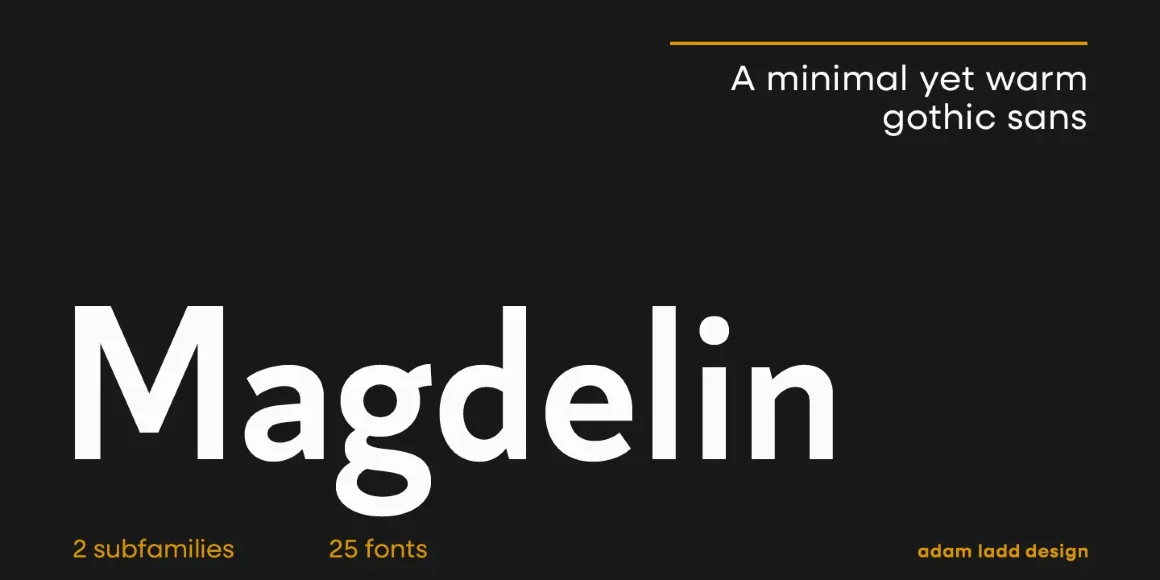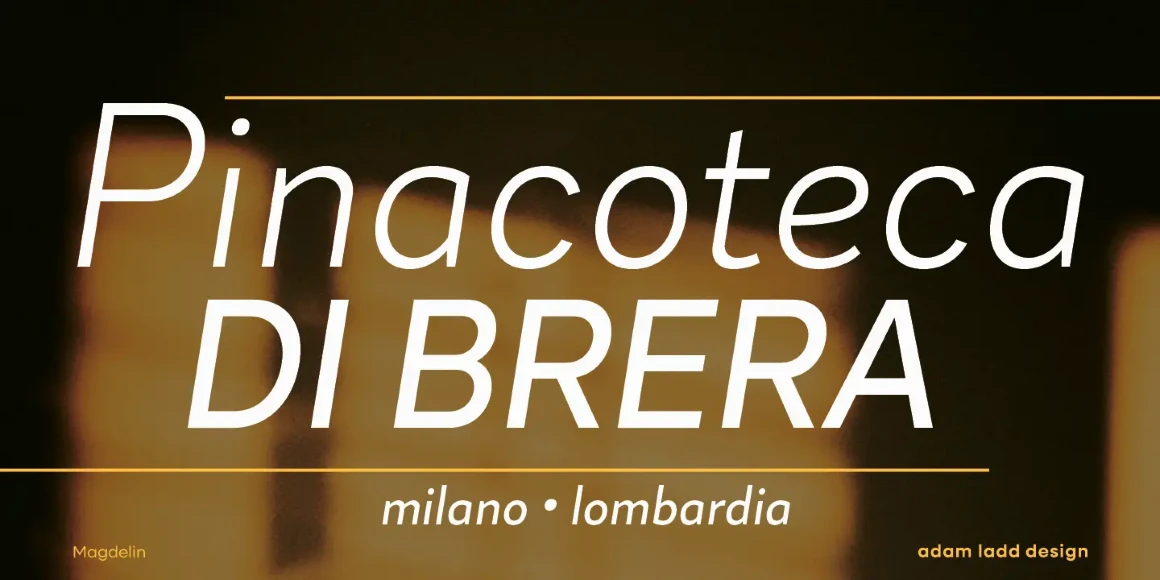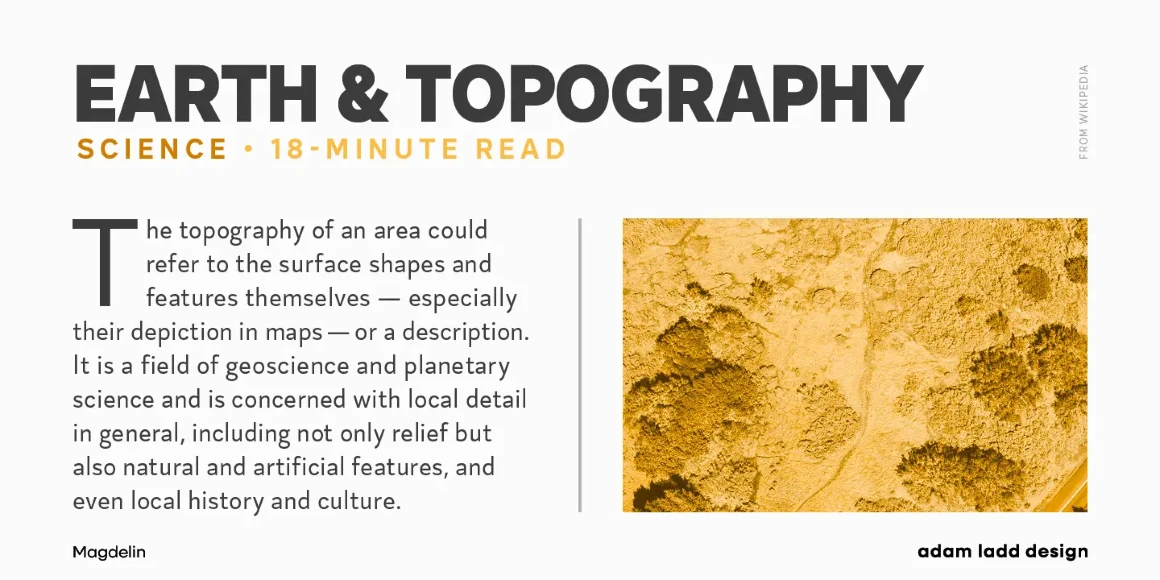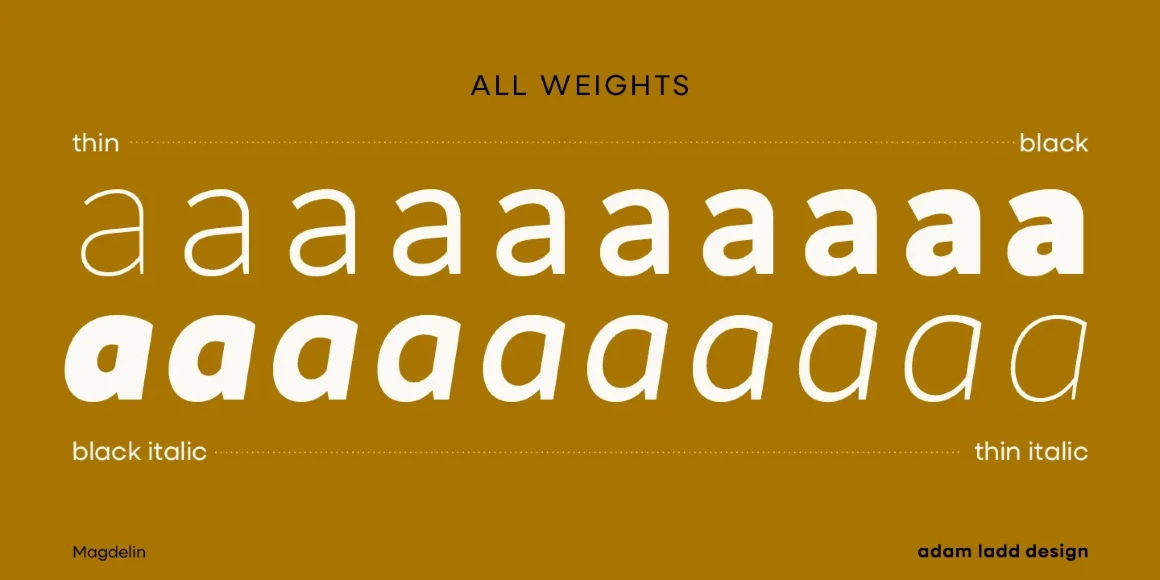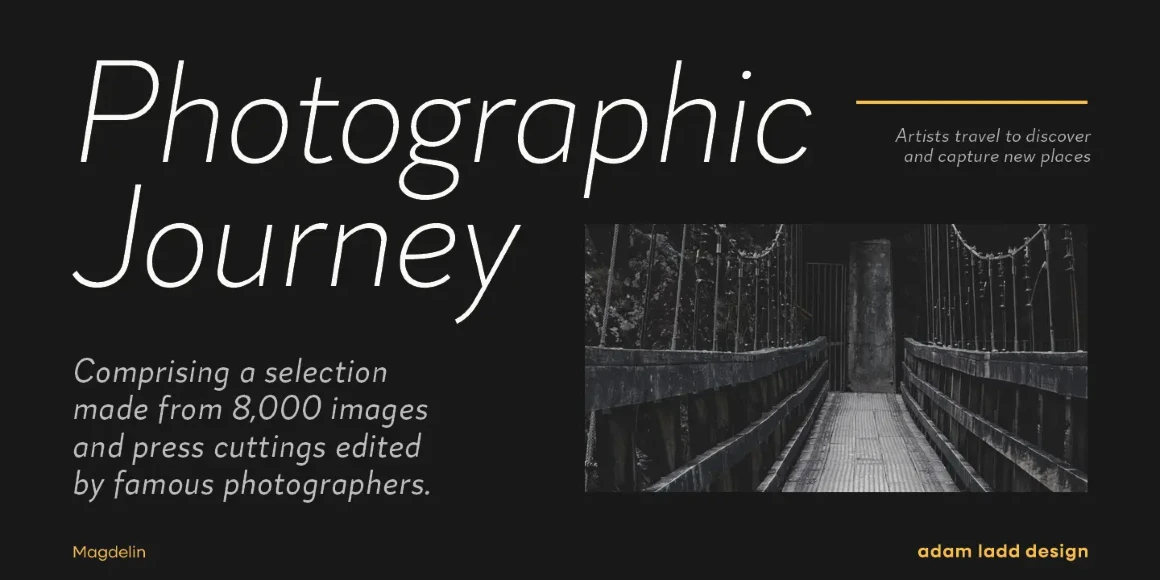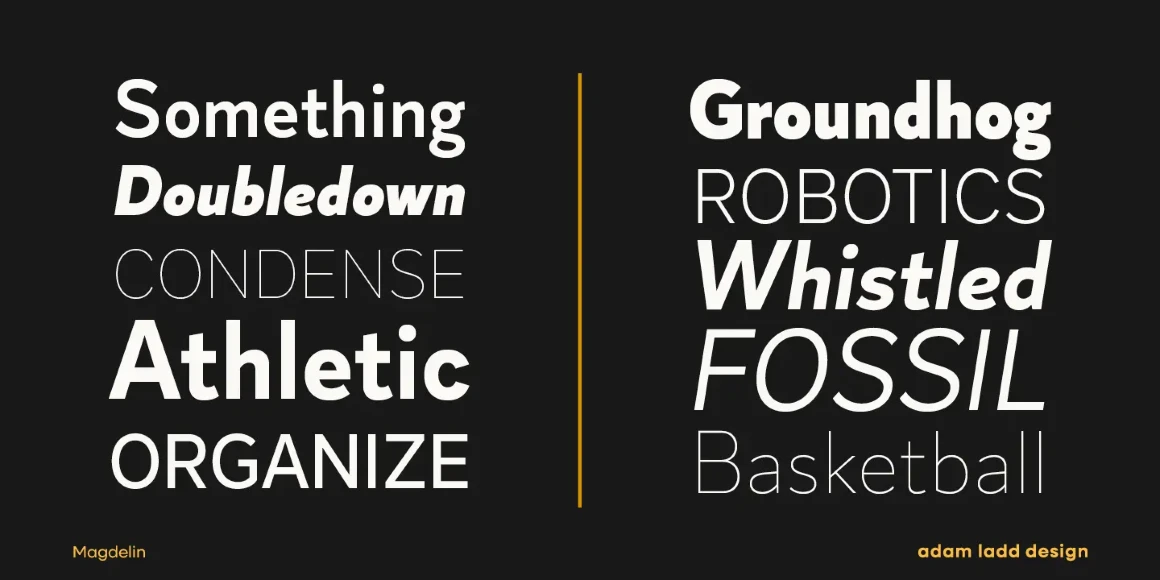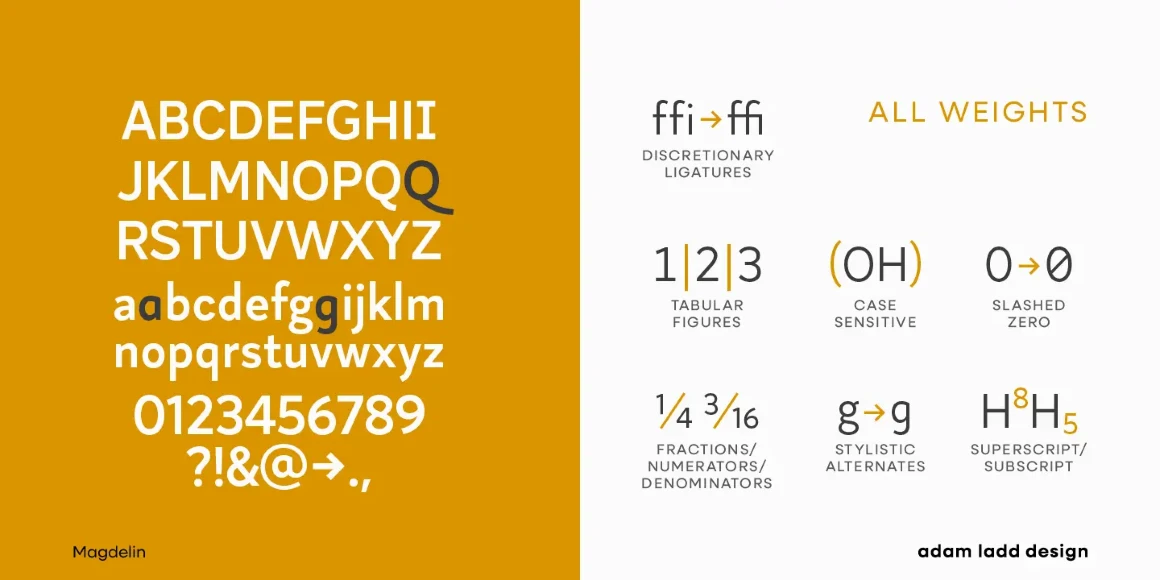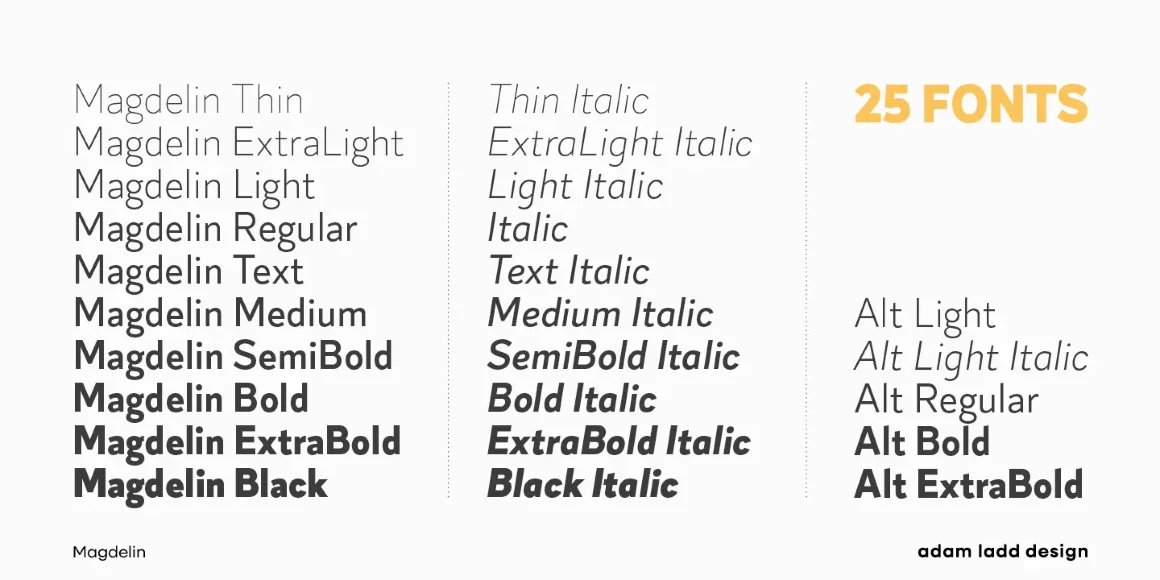
Magdelin
From Adam Ladd Design
At its core, Magdelin is a minimal Gothic sans having simple forms and low contrast. Yet, it takes some cues from the Humanist class with its calligraphic details found in the italics. The small x-height, long ascenders and descenders, and semi-condensed proportions give it a classic vintage feel while appearing stylish and modern in current typographic landscapes. The clean design makes it a valuable, versatile workhorse, great for branding, packaging, editorial, books, websites, and more.
Designed by Adam Ladd
Slashed Zero